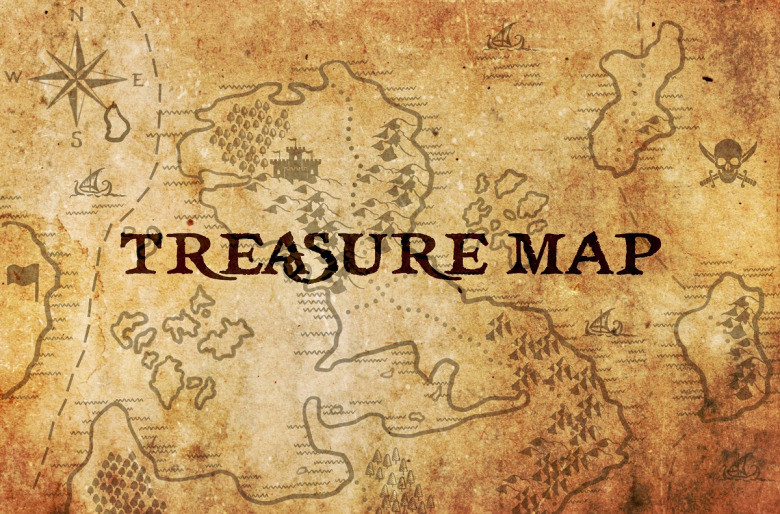
Treasure Map Font
Treasure Map is a high quality Display, Serif font that is designed by Joanna Vu and is available for free download and personal use. The free version provides all uppercase and lowercase letters and a few special characters too.